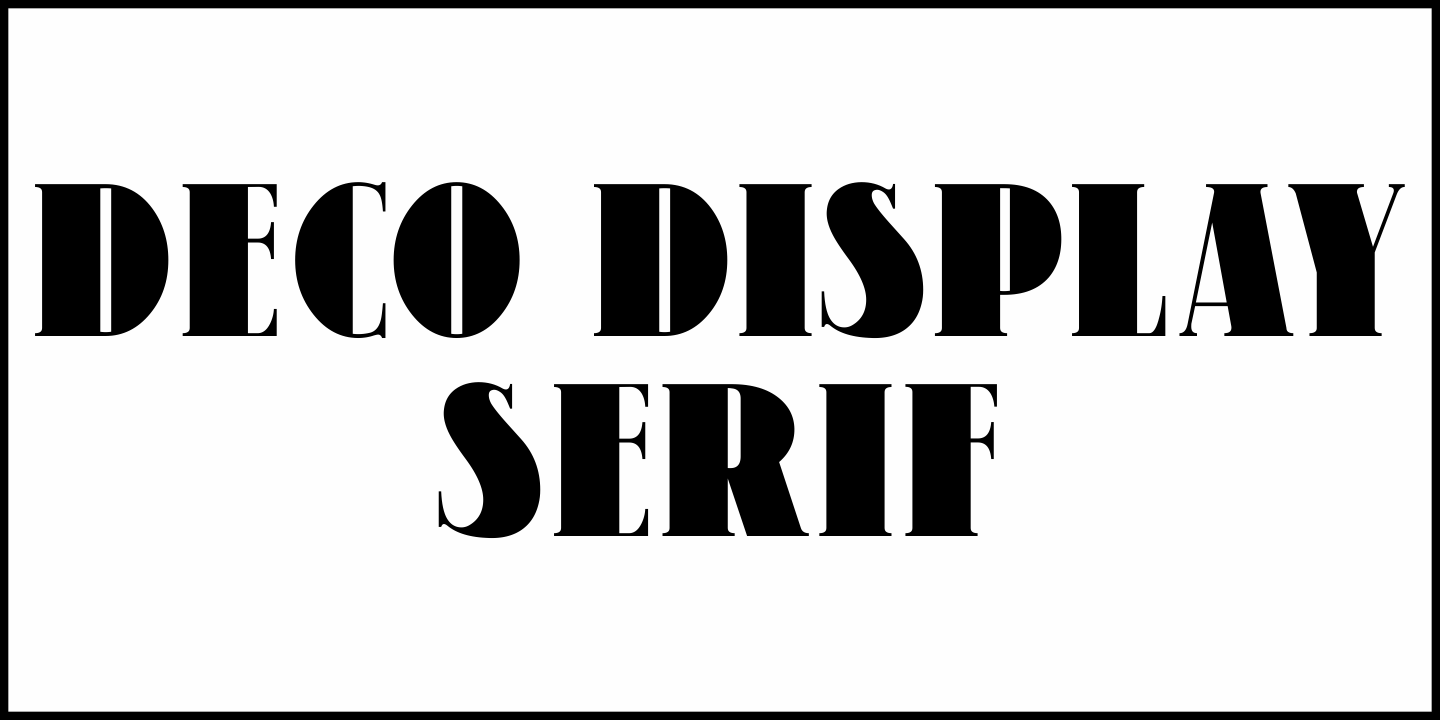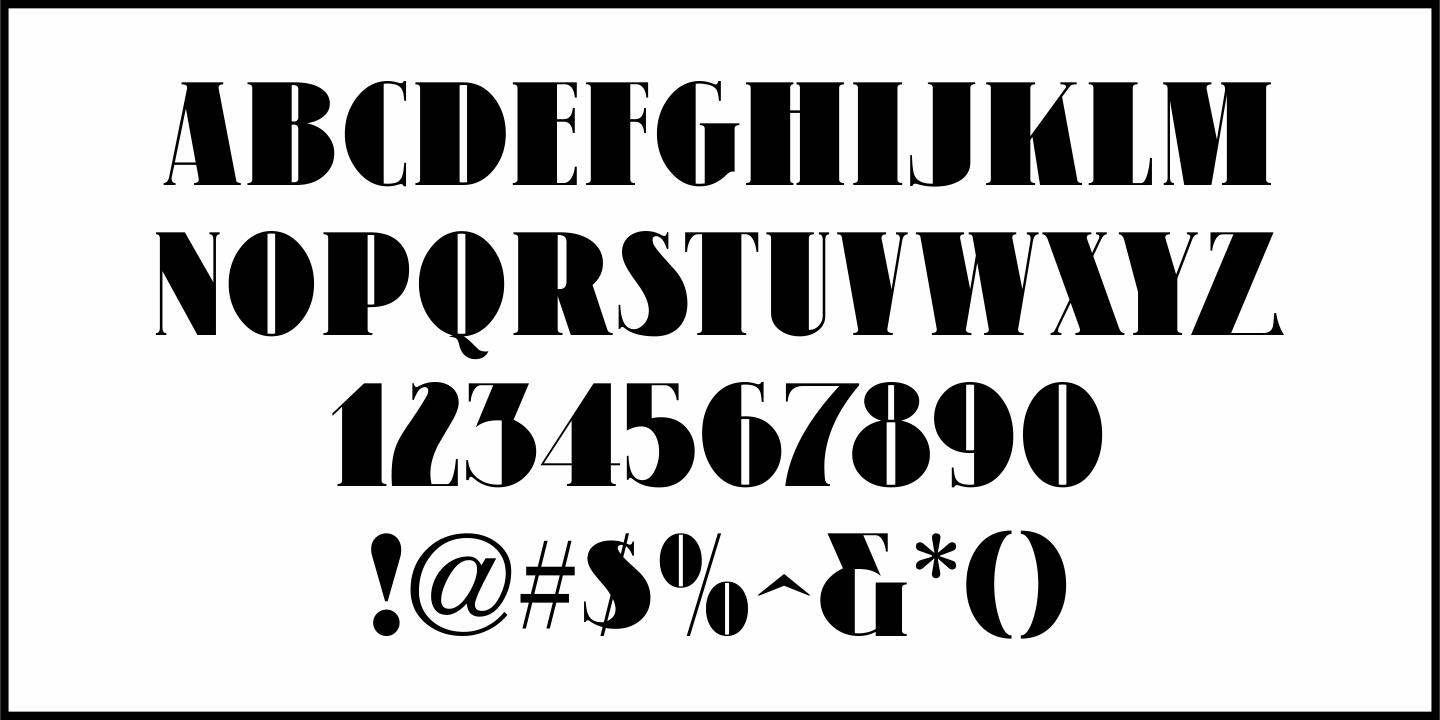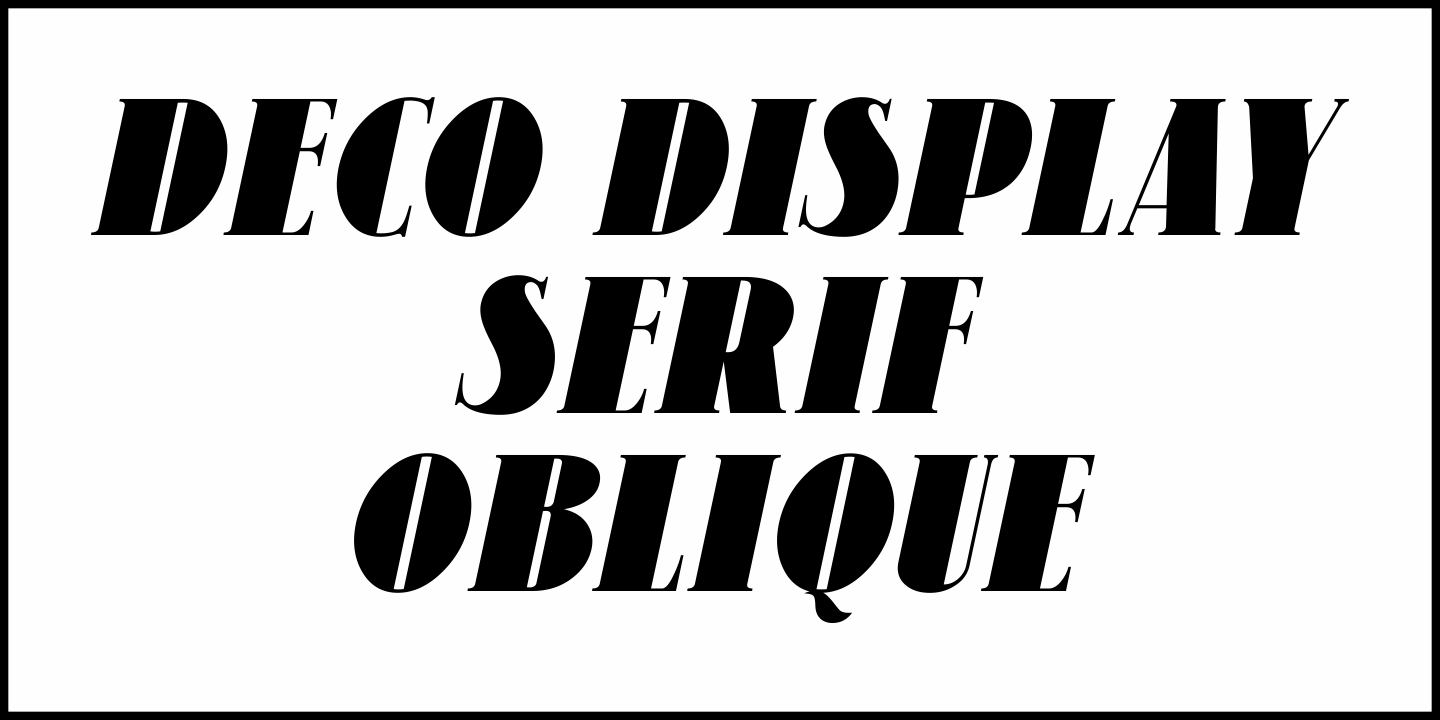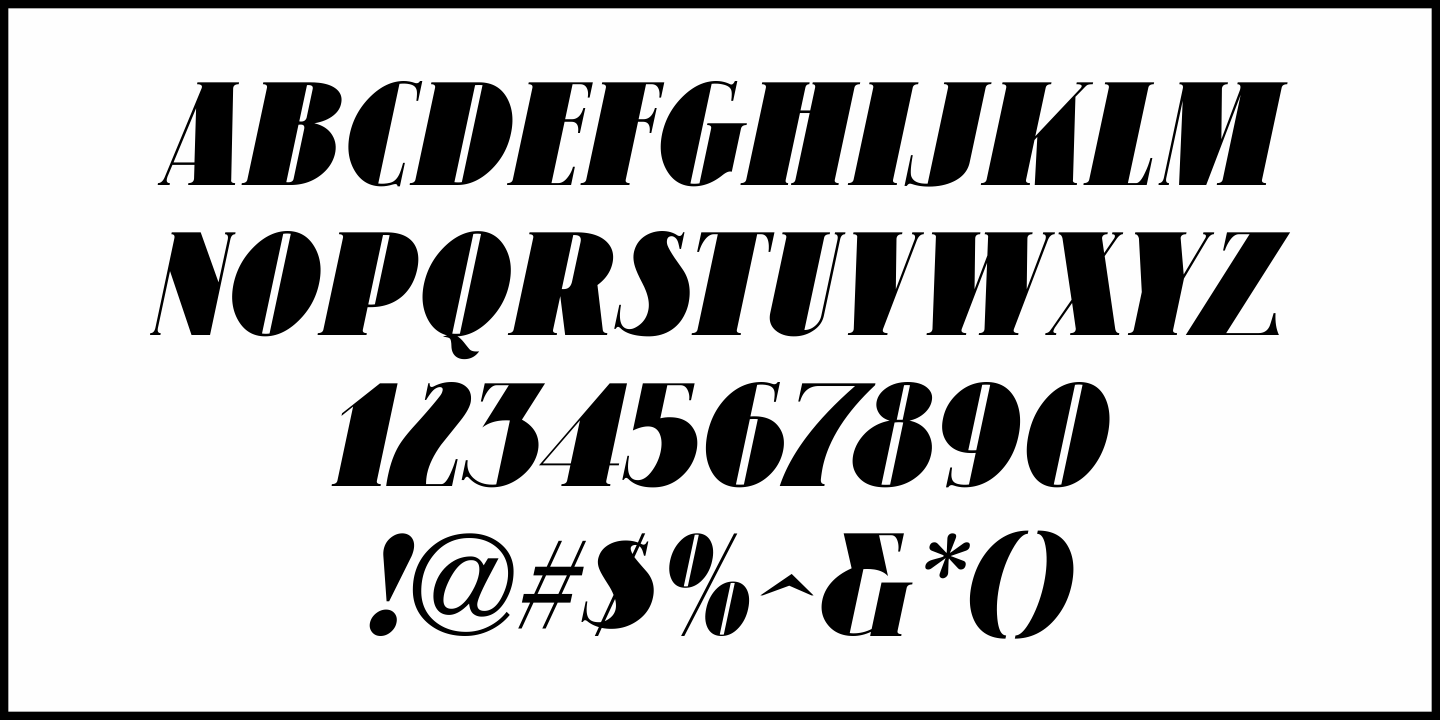
Deco Display Serif
An attractive extra-bold thick and thin serif type design was part of the vintage French lettering book "32 Alphabets Moderne".
This is now available digitally as Deco Display Serif JNL in both regular and oblique versions.